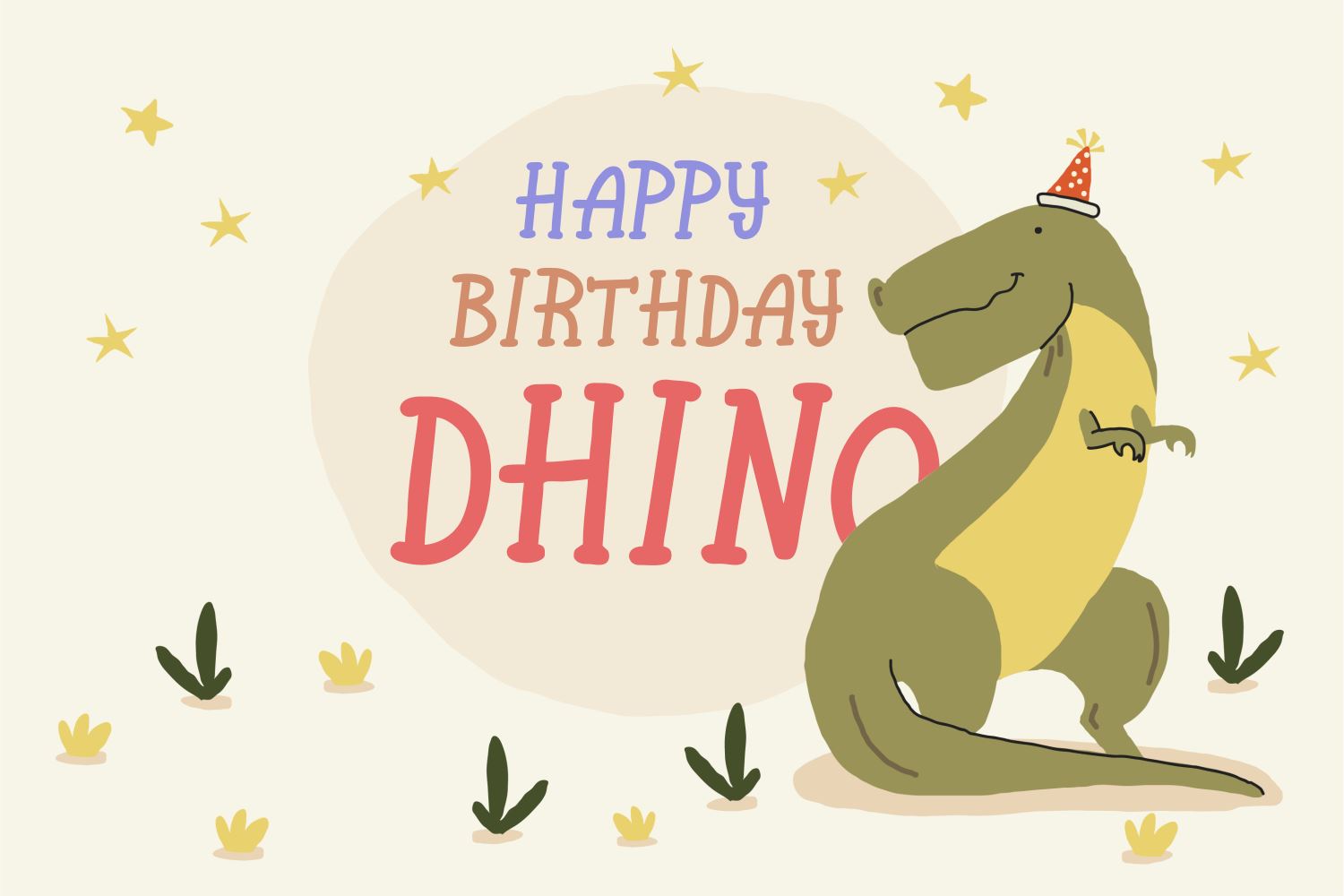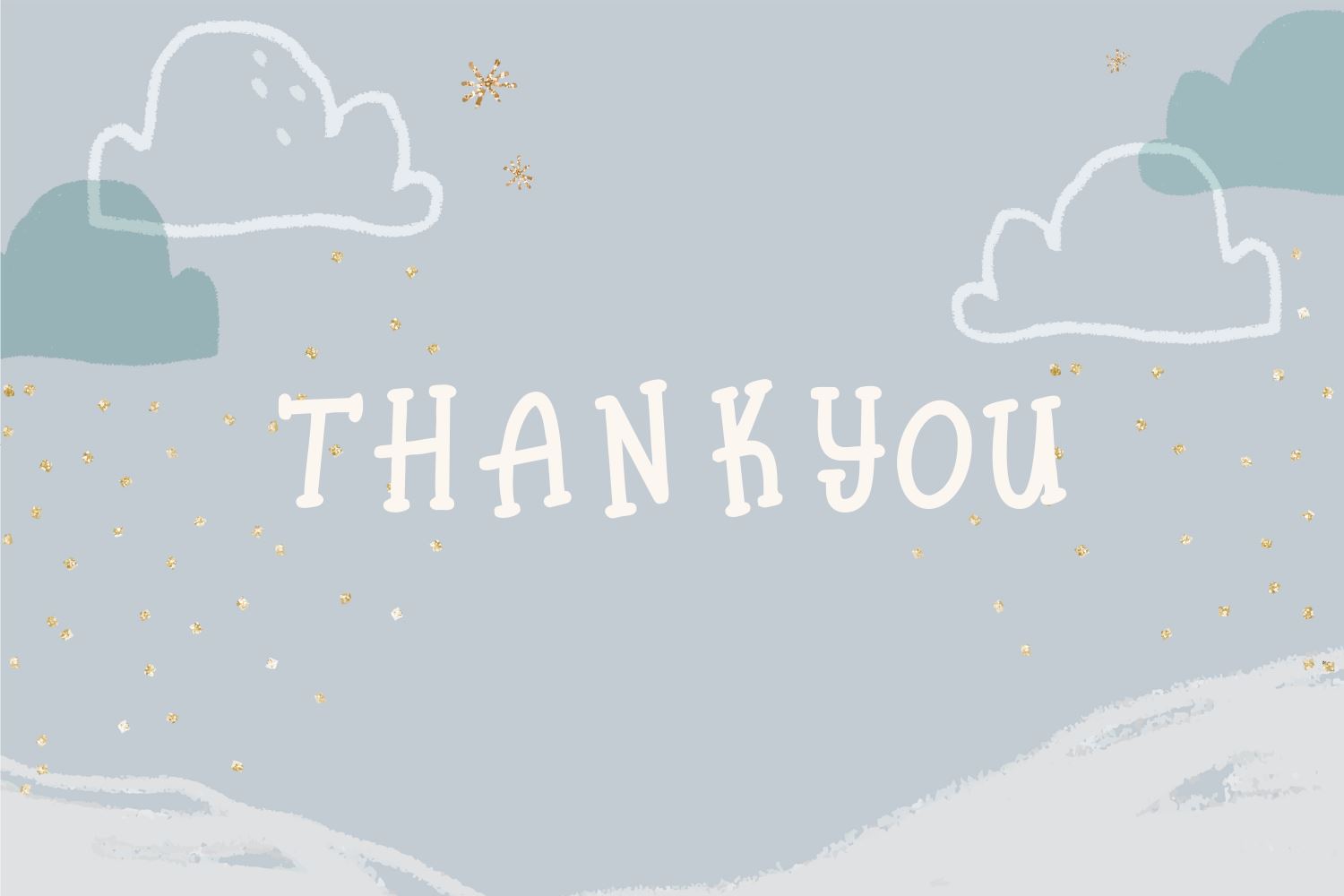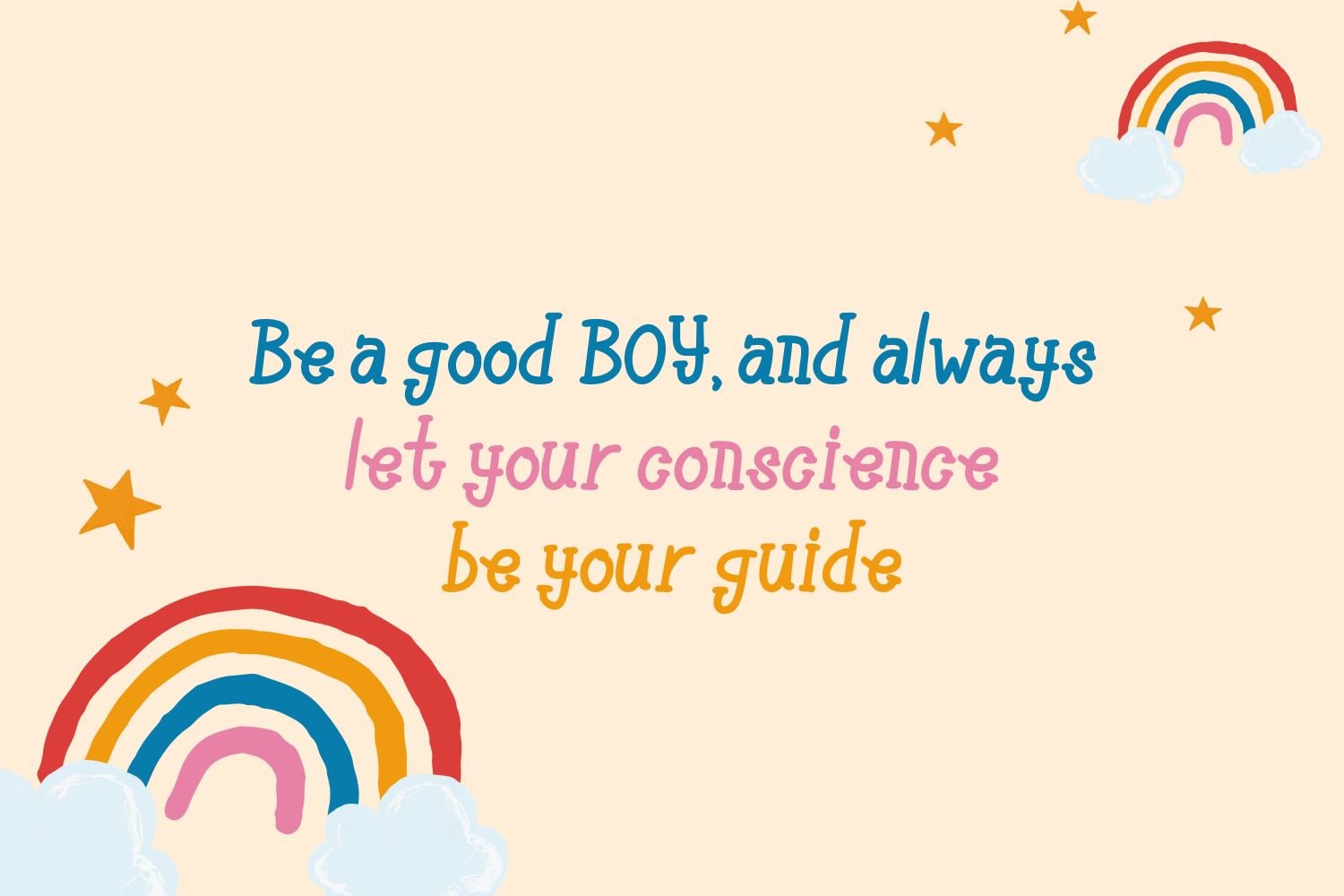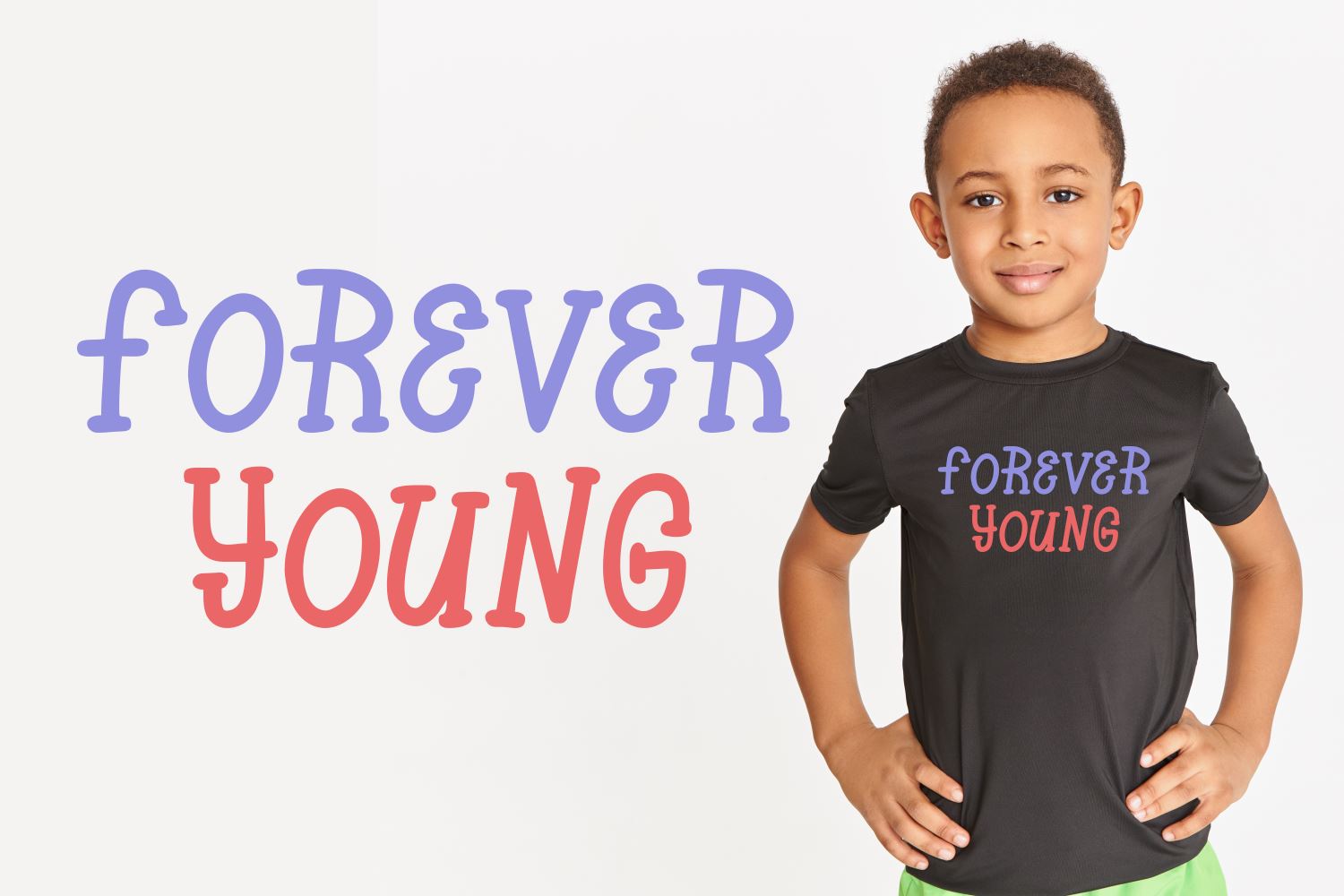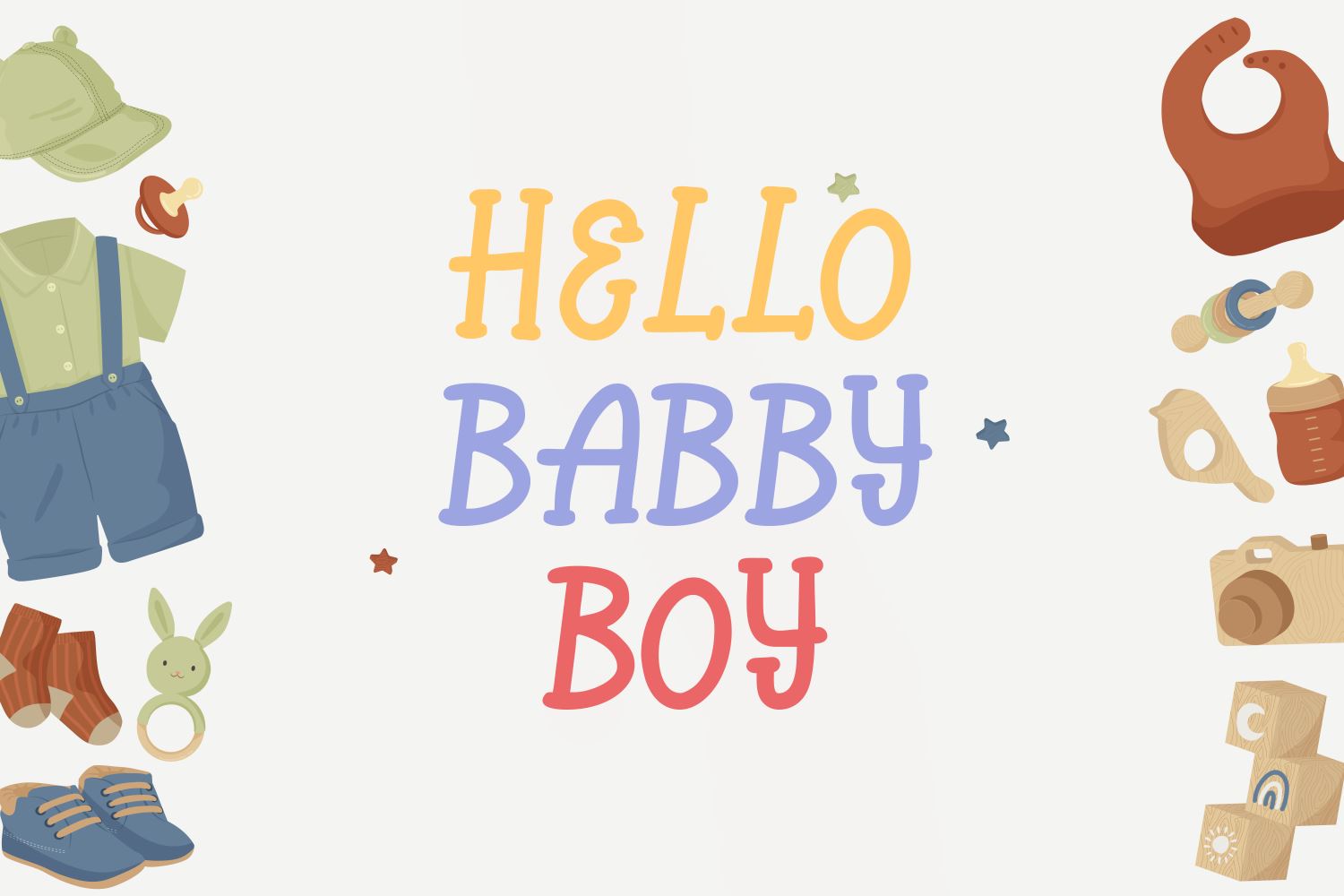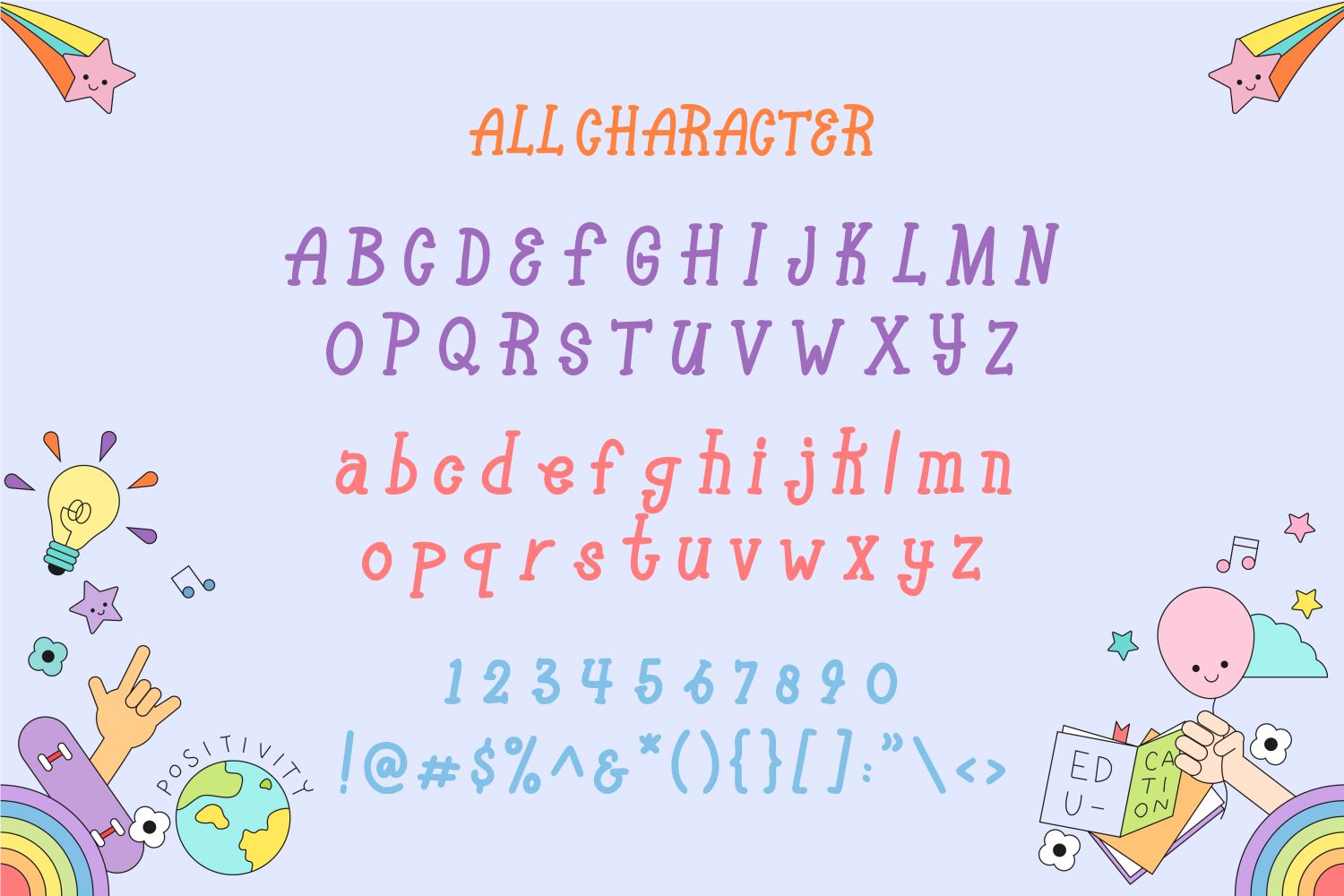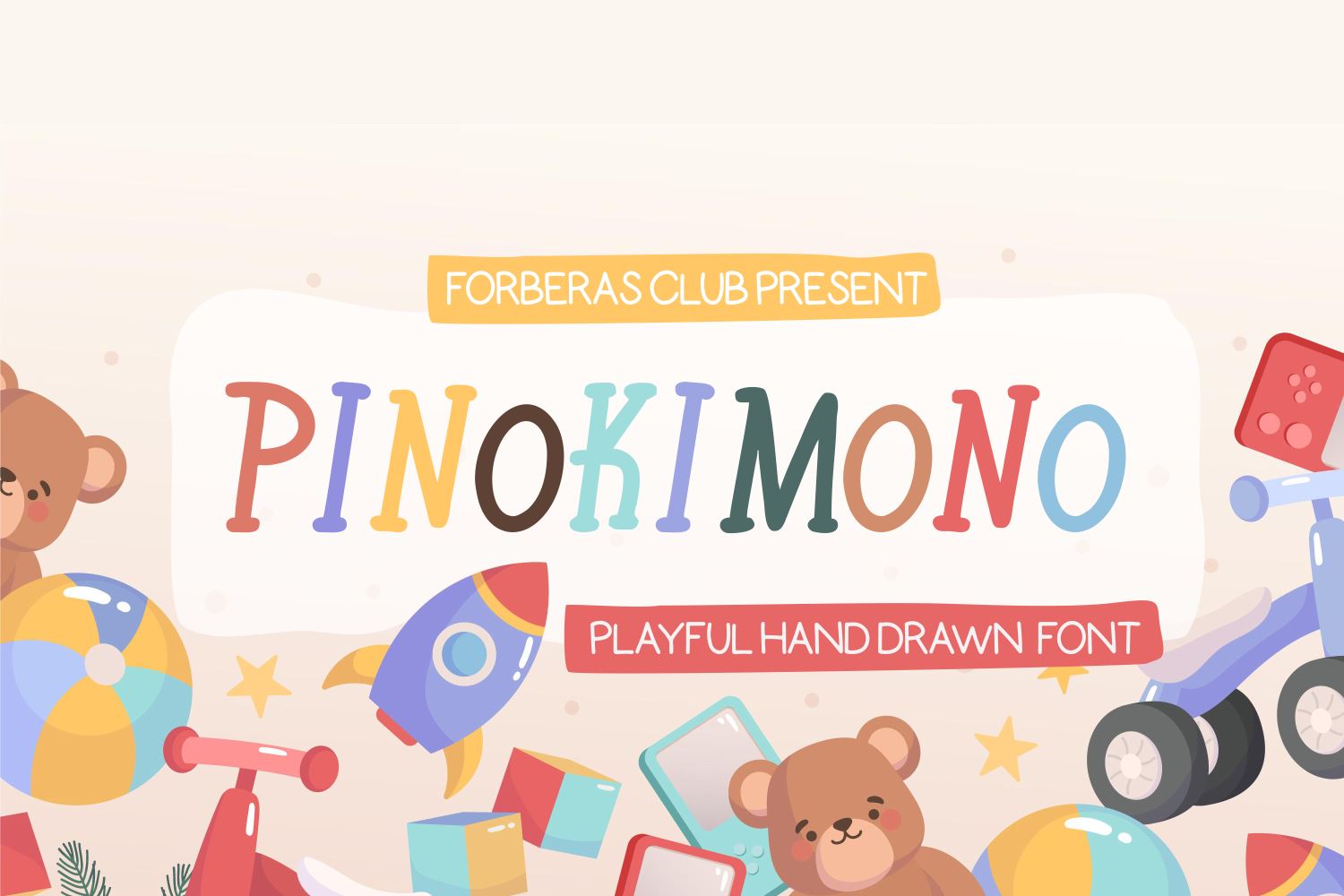
Pinokimono
About Pinokimono
Introducing Pinokimono Font by Forberas Club Pinokimono is a Modern Handwritten Font. Pinokimono is perfect for book cover, product packaging, branding project, megazine, social media, kisd book fonts, or just used to express words above the background. This font includes TTF and OTF, This font also multilingual support.